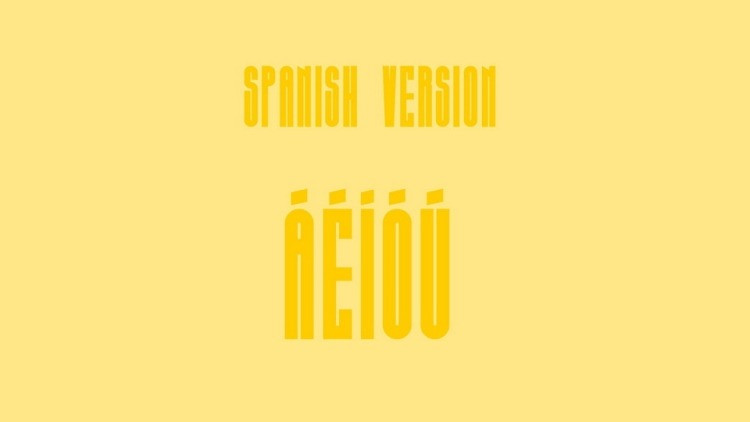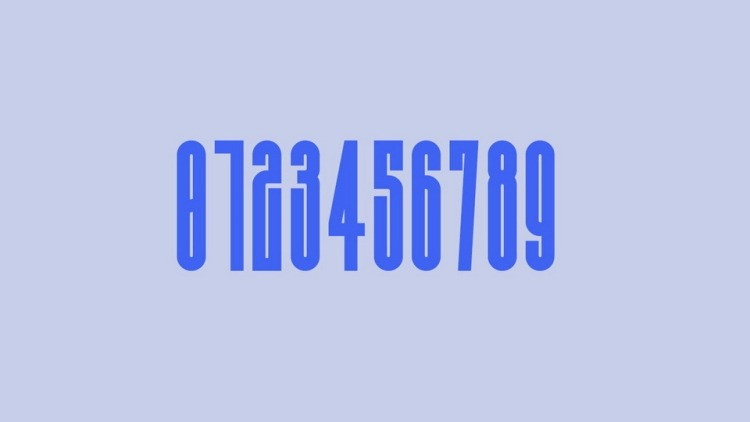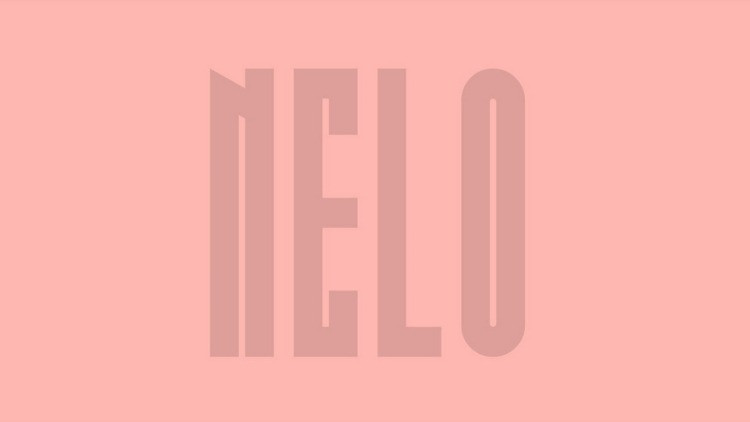
Nelo Font
Nelo Sans Serif Font is an extremely condensed modern sans display typeface with a bold personality. It is perfect for giving strength and power of attraction for short texts and large sizes.
Add it confidently to your favorite creations and let yourself be amazed by the outcome generated.